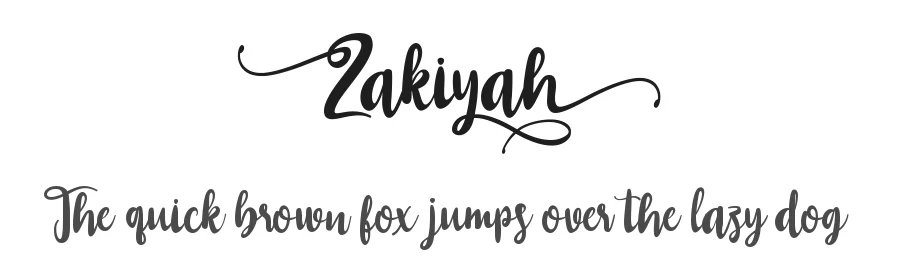
About Rosetype Font
Rosetype Specifications
| Font Family | Rosetype |
| Full Name | Rosetype |
| PostScript Name | Rosetype |
| Designer | Forberas Club |
Rosetype supports 89 languages.
Rosetype Font is a script font that shines as a display or heading face. Pair it with a clean sans-serif or serif font for body text β the contrast creates a clear hierarchy while the two styles stay balanced and easy to read.